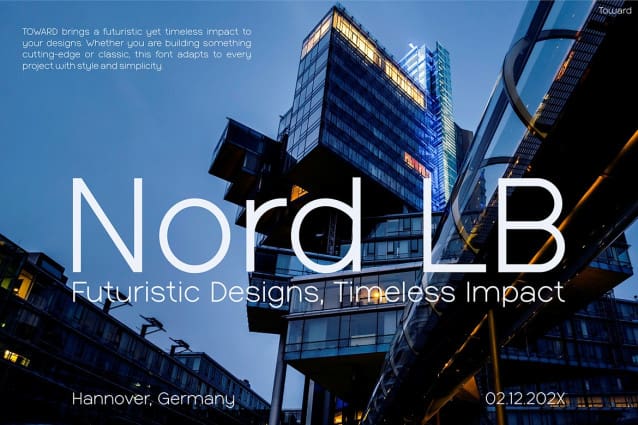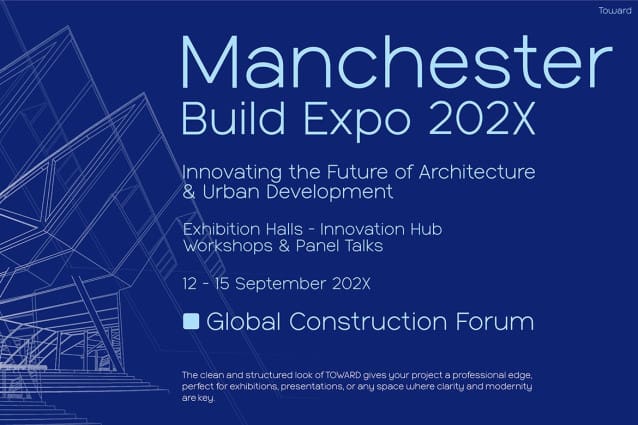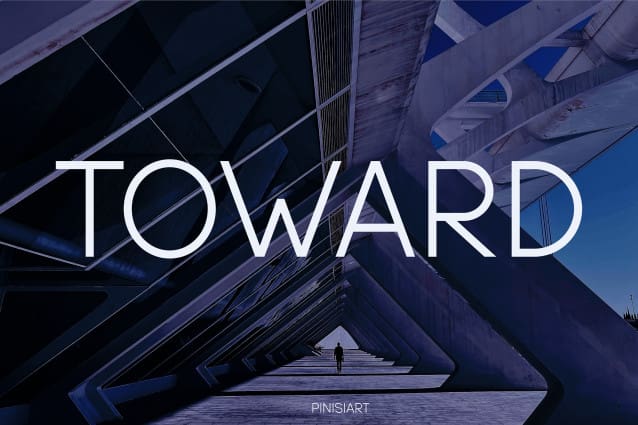
Toward Font
Toward Font is a sleek, modern typeface designed for innovation, minimalism, and high-impact visual identity. This font features clean lines, geometric shapes, and a bold, forward-thinking structure that embodies futuristic aesthetics. Whether you aim to create a high-tech brand, an architectural layout, or a visionary digital experience, Toward delivers clarity and sophistication.
The font’s contemporary appeal makes it perfect for brands that embrace modernity and progress. With a refined balance between simplicity and boldness, Toward ensures text remains legible while exuding an ultra-modern feel. Its structured, streamlined design adds a professional and polished touch to every project, making it an excellent choice for industries like tech, engineering, and digital media.
Moreover, Toward adapts effortlessly to various applications, from branding and web design to futuristic posters and magazine layouts. Its precision-cut letters and minimalist aesthetic make it an ideal font for those seeking a clean yet impactful style. Whether used for headlines, corporate identities, or digital interfaces, Toward Font brings a sense of direction and progress to any design.